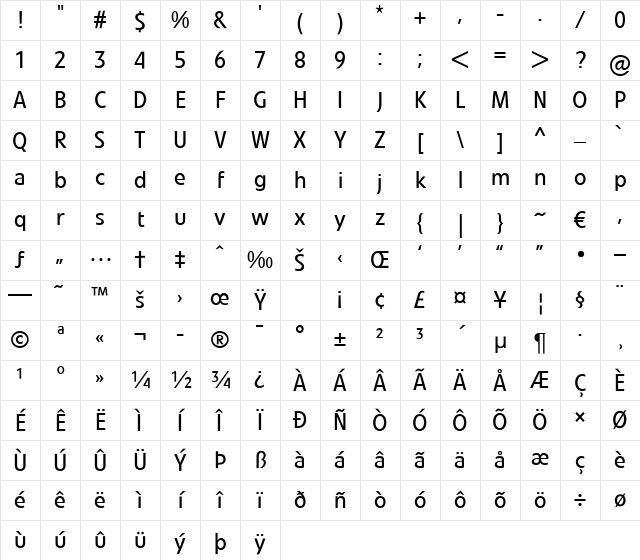
LTVeto Regular
Designer: Marco Ganz
Complete LTVeto Regular glyph index. Displaying only characters natively supported by LTVeto Regular font.
Design Context for LTVeto
LTVeto is a composed and adaptable typeface that performs quietly and consistently across a wide range of design contexts.